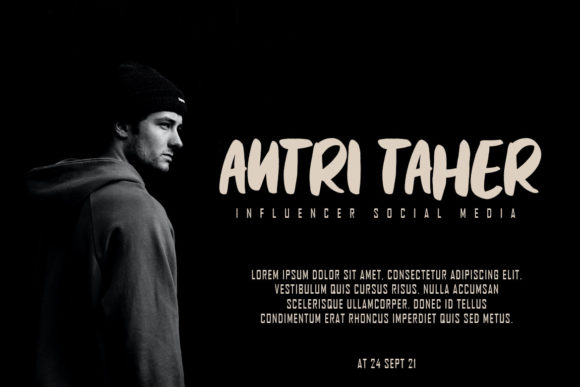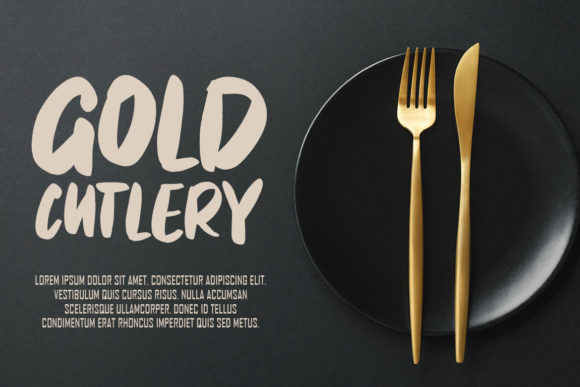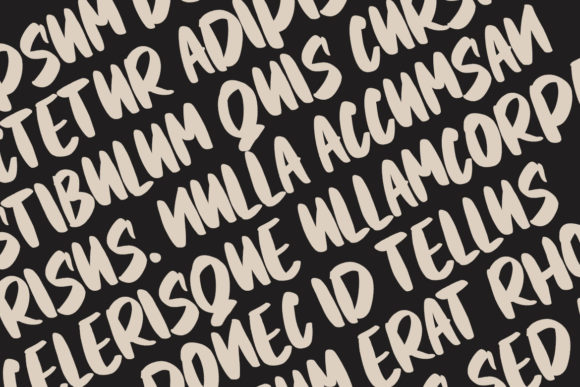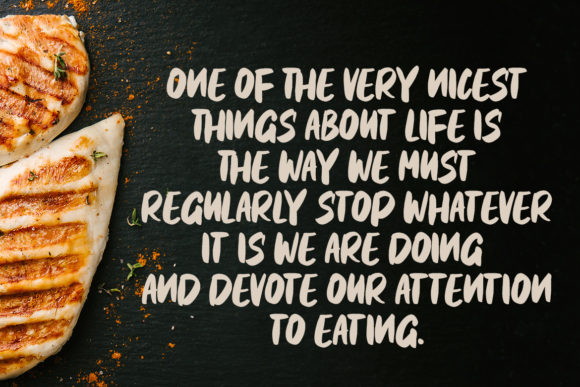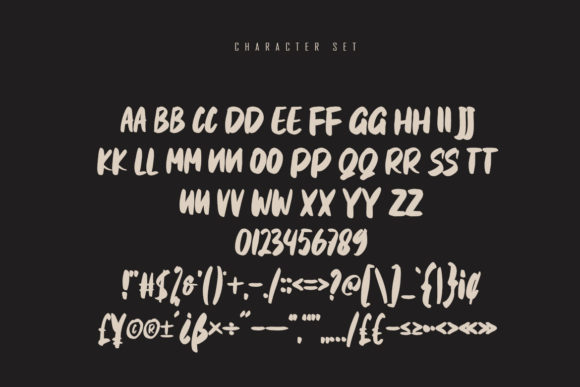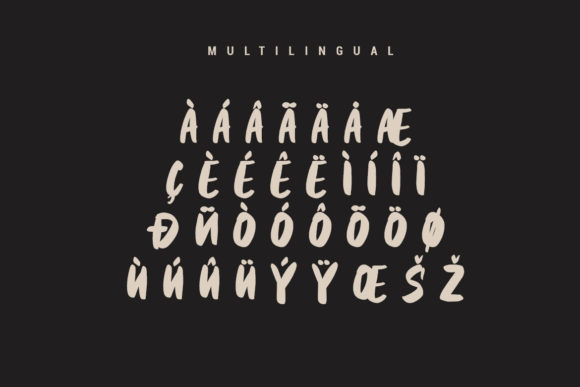
Gelisah Font: Elevate Your Designs with a Trendy and Adaptable Handwritten Style
In the world of typography, a good font can make all the difference in elevating your designs from ordinary to extraordinary. If you’re a designer or crafter looking for a unique and versatile font to add to your creative arsenal, look no further than Gelisah Font. This trendy and adaptable handwritten font is perfect for a wide range of projects, from branding and advertising to packaging and digital media.
What Makes Gelisah Font So Special?
Gelisah Font is a beautifully crafted handwritten font that exudes a sense of elegance and sophistication. Its unique charm lies in its ability to balance playfulness with refinement, making it an excellent choice for designers who want to add a personal touch to their work. With Gelisah Font, you can create stunning designs that stand out from the crowd and leave a lasting impression on your audience.
Key Features of Gelisah Font
- Trendy and Adaptable: Gelisah Font is designed to be versatile and adaptable, making it suitable for a wide range of projects and applications.
- Handwritten Style: This font boasts a beautiful handwritten style that adds a personal touch to any design.
- Elegant and Sophisticated: Gelisah Font exudes elegance and sophistication, making it perfect for high-end branding and advertising projects.
- Easy to Read: The font is clear and easy to read, ensuring that your message gets across effectively.
How to Use Gelisah Font in Your Designs
Gelisah Font is incredibly easy to use and can be applied to a wide range of design projects. Here are some ideas to get you started:
- Branding and Logo Design: Use Gelisah Font to create stunning logos and brand identities that stand out from the competition.
- Advertising and Marketing: Add a touch of elegance and sophistication to your advertising and marketing materials with Gelisah Font.
- Packaging Design: Use Gelisah Font to create eye-catching packaging designs that showcase your product in style.
- Digital Media: Gelisah Font is perfect for digital media, including social media graphics, blog posts, and website headers.
Why Choose Gelisah Font?
With so many fonts to choose from, why should you choose Gelisah Font? Here are just a few reasons why Gelisah Font stands out from the crowd:
- Unique and Exclusive: Gelisah Font is a unique and exclusive font that will set your designs apart from the competition.
- High-Quality: This font is designed to the highest standards, ensuring that it looks great in any design.
- Easy to Use: Gelisah Font is incredibly easy to use and can be applied to a wide range of design projects.
In conclusion, Gelisah Font is a trendy and adaptable handwritten font that is perfect for designers and crafters looking to elevate their designs. With its unique charm, elegant style, and versatility, Gelisah Font is an excellent choice for a wide range of projects. Whether you’re working on branding, advertising, packaging, or digital media, Gelisah Font is sure to make your designs stand out from the crowd.